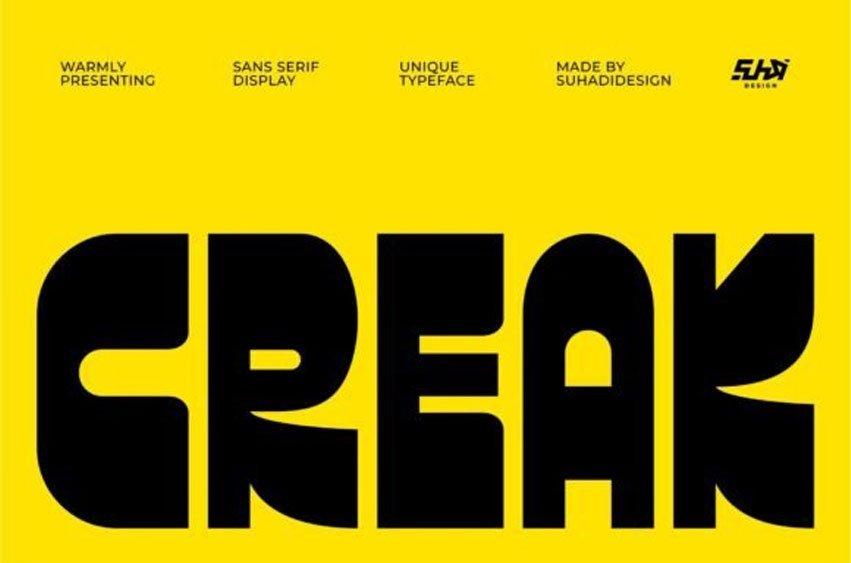
Creak Font Command the room with the undeniable gravity of the Creak font, a bold and unique sans serif display typeface designed for maximum visual impact.
This powerhouse Creak typeface features ultra-thick, geometric letterforms with unexpected sharp cutouts and a heavy weight that grounds any design it touches. The Creak font is perfect for avant-garde branding, brutalist architecture posters, and high-fashion editorial headers where you need a font that speaks with authority and modern sophistication. Each character in the Creak typeface is a study in balance and negative space, making it a “hero” font for logos that need to remain iconic and memorable.
The Creak font thrives in high-contrast environments, particularly when used in large scales against minimalist backgrounds. Pair this Creak typeface with thin, monospaced fonts to create a striking typographic hierarchy that feels both futuristic and industrial. It is an exceptional choice for tech startups, luxury streetwear labels, and experimental music covers.
Whether you are designing a book jacket or a billboard, the Creak font provides a professional, bold finish that ensures your message is not just seen, but truly felt. Let the Creak typeface be the foundation of your next breakthrough design project.